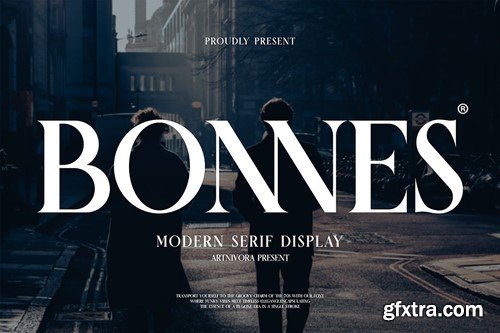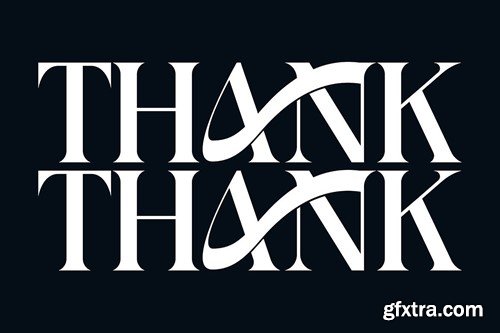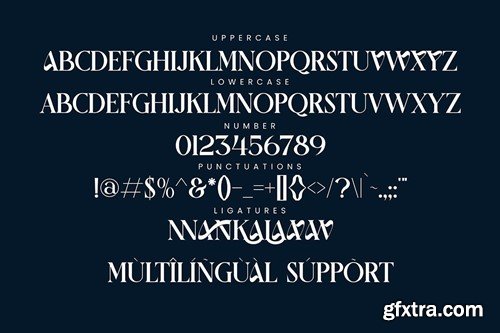
Bonnes - Serif Display Font AUR262F
Bonnes - Serif Display Font
Introducing Bonnes, a simple and serif font. So perfect for you who needs a typeface for logo designs, magazine, social media, brochure, and many more. Features Files Includes Thank you for checking and i hope you enjoy it.